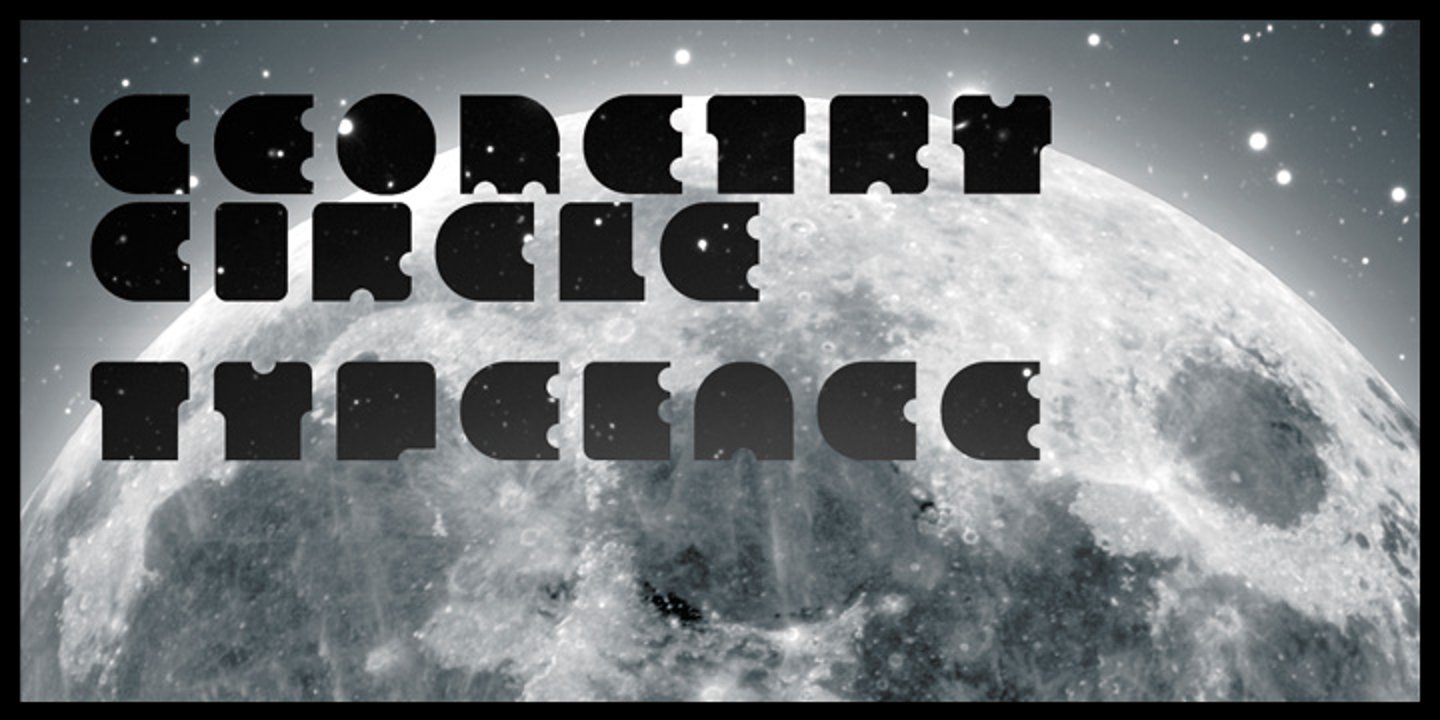
Geometry circle is a heading/display type, built with the intent to illustrate and attract the viewer, not to be used for long text. The inspiration comes from the Futurist movement typefaces, especially from Marinetti’s own workshop on new age typography of that time (Italy 1920). The typeface is composed of only capital letters. The letters are of an unique geometric design taking the basic 64 grid system and subtracting the shape of a circle form each glyph in a unique way to form a letter. There is a full complement of typography symbols as well as a support for Central and Eastern European symbols and characters.